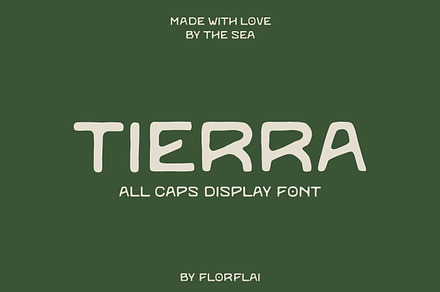
Tierra font
A display font with an earthy, grounded character, drawn with weight distribution that gives the letterforms visual heaviness at the base.
Weighting the bottom of a letterform makes it read as settled and stable, which is a structural way of communicating something a decorative treatment would only imply.
- Base-weighted letterform construction
Made for
- Natural and artisan branding
- Food and beverage packaging
- Outdoor and craft businesses
- Print and signage